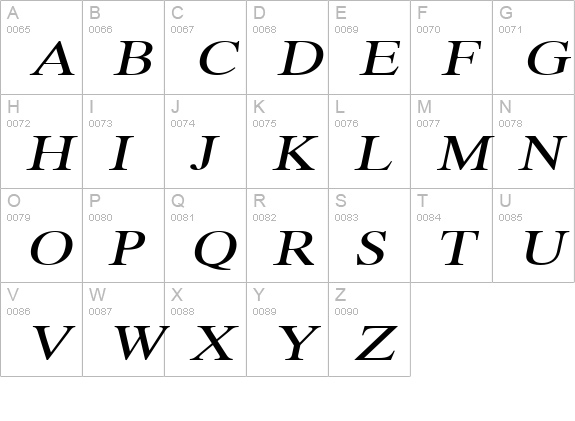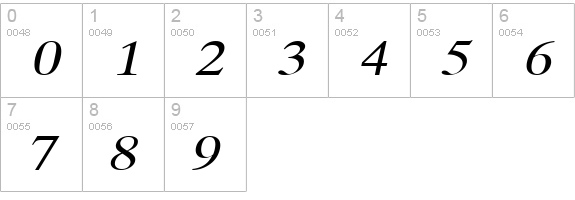
Duke Extended Italic is a distinctive, extended-width, italic variant in the Duke typeface family \xE2\x80\x94 well suited to design and typography projects.
The Duke Extended Italic font exudes elegance and sophistication with its sleek and stylish design. The italicized letterforms add a touch of flair and uniqueness to any project, making it perfect for branding, editorial design, and more. This font is versatile and can be used for both headings and body text, creating a cohesive and polished look. One of the best features of the Duke Extended Italic font is that it is available for free download at FontsMarket.com. This means that you can easily access this high-quality font without any cost, making it a valuable addition to your font library. Whether you're a designer looking to elevate your projects or a business seeking a professional and modern typeface, Duke Extended Italic is sure to impress. Download it today and enhance your designs with this exceptional font.